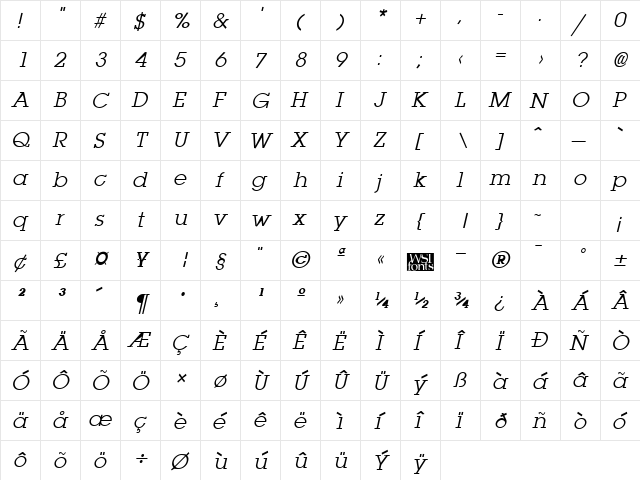
Lapland Italic
Design Context for Lapland Typeface
Lapland takes a measured approach to typography — its balanced proportions and neutral character make it a reliable workhorse for both digital and print work. Its italic angle brings a sense of urgency and motion to the letterforms.